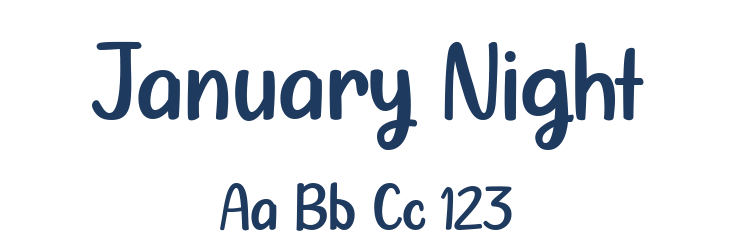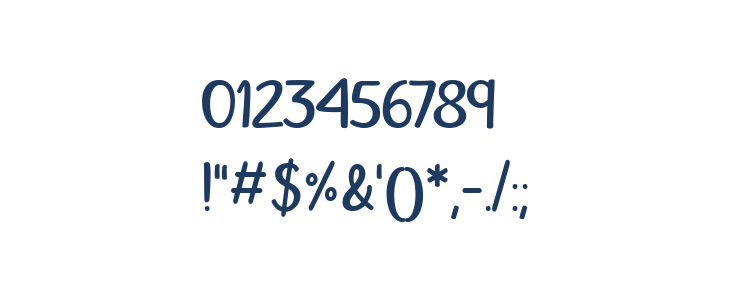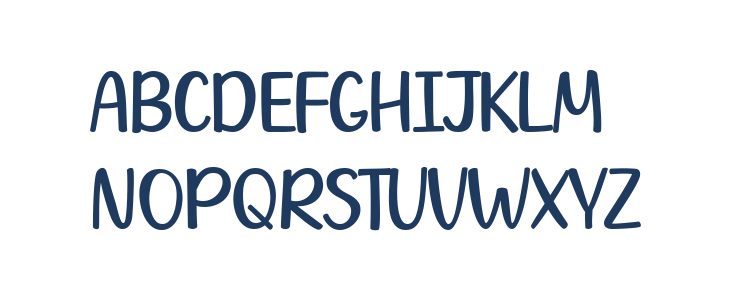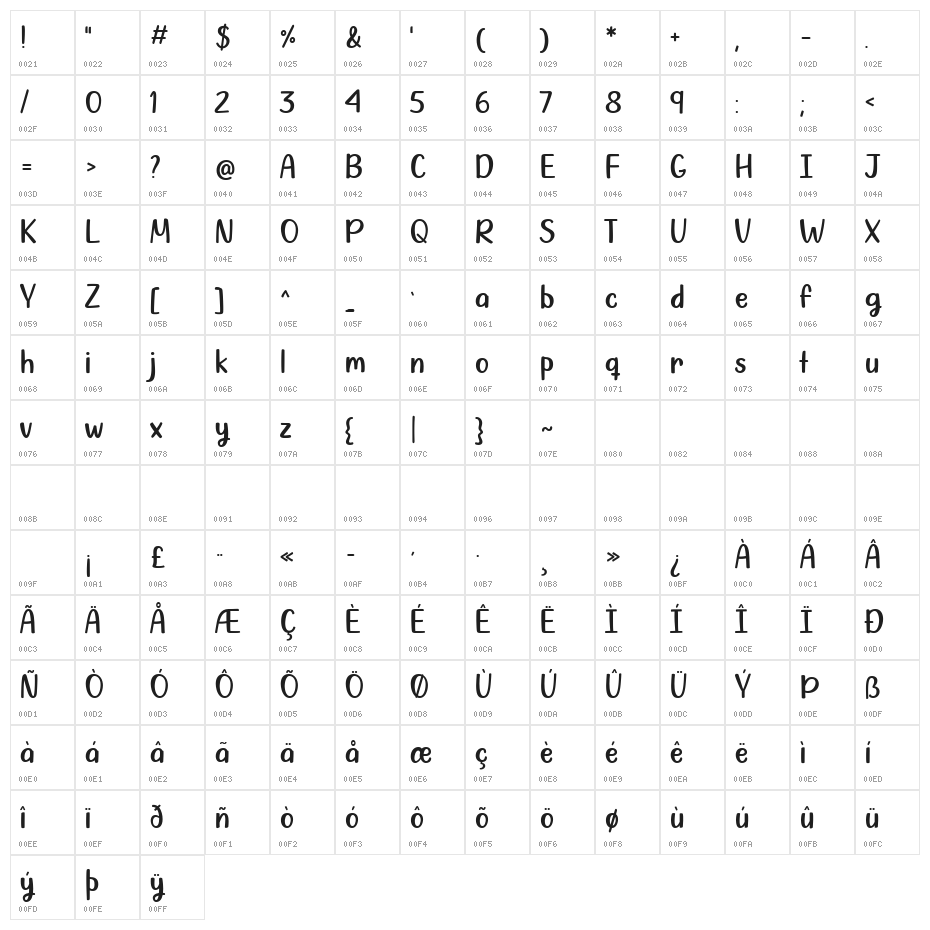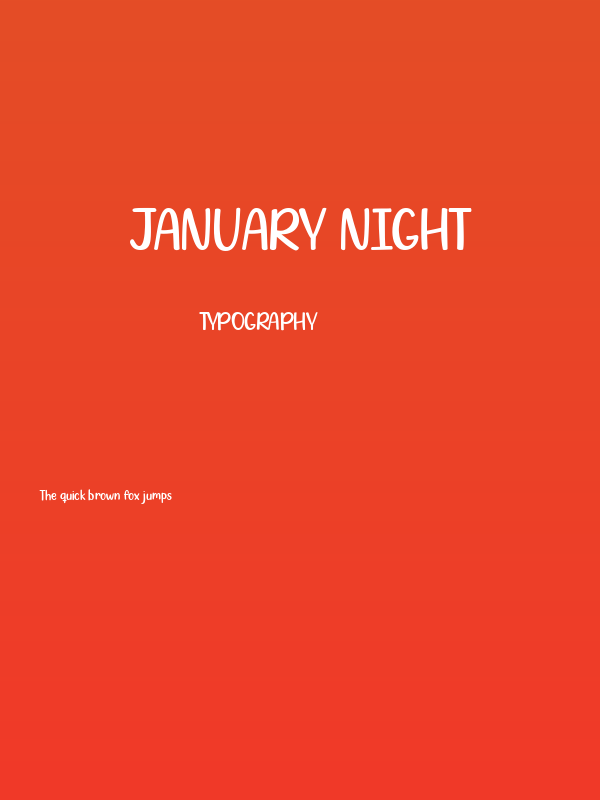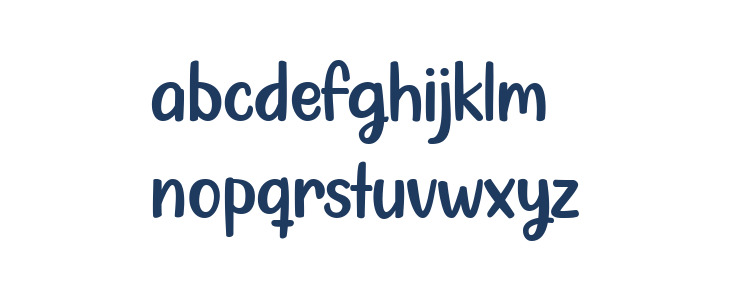
January Night Font
January Night Description
A playful, rounded sans-serif typeface with a handwritten feel, featuring consistent stroke widths and slightly irregular character shapes that add a casual, friendly appearance.
| Overall Style | Playful, Casual, Handwritten |
| Use Case | Headlines, Logos, Informal text, Posters |
| Proposed Projects | Children's books, greeting cards, informal branding, posters, social media graphics. |